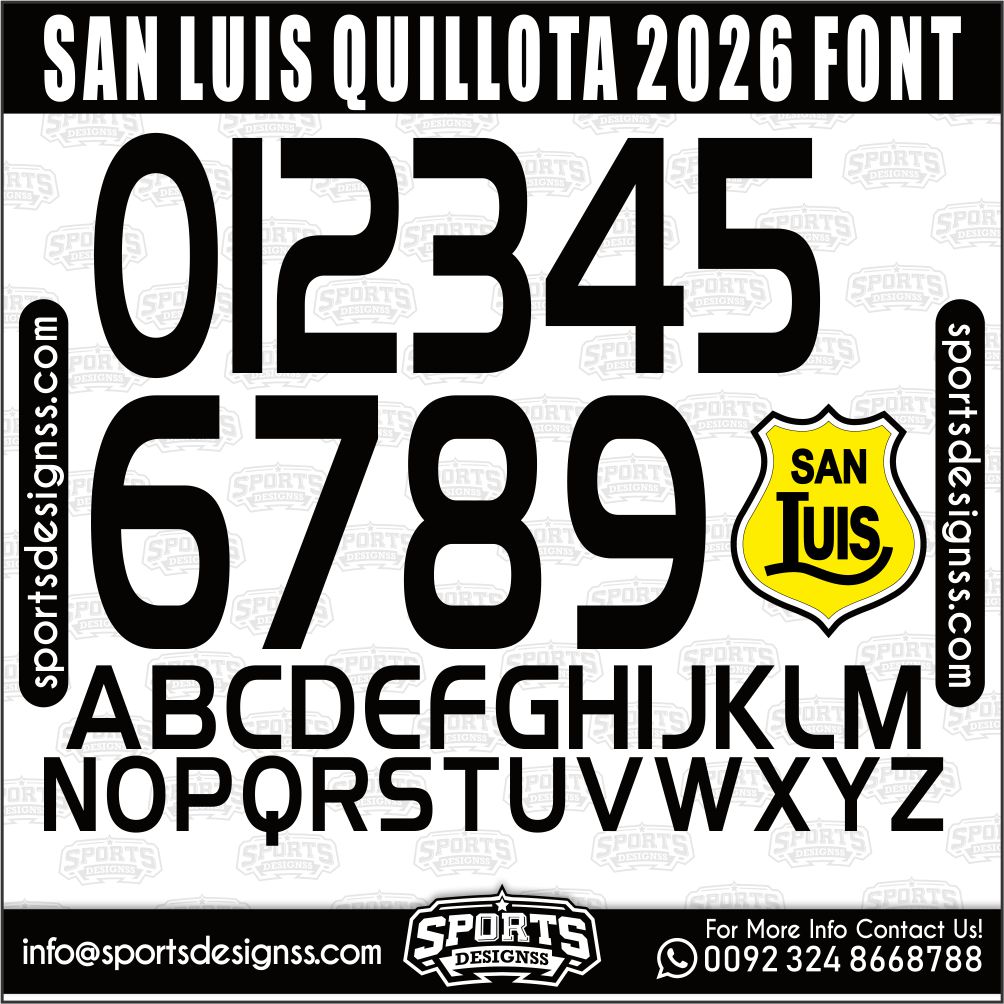
Download the SAN LUIS QUILLOTA 2026 Font by Sports Designss – a premium football jersey font inspired by modern kits.
Recreate authentic football jersey designs with the SAN LUIS QUILLOTA 2026, built for realistic, match-ready sports visuals.
Upgrade your designs with the SAN LUIS QUILLOTA 2026, a premium football jersey font inspired by modern professional sports aesthetics.